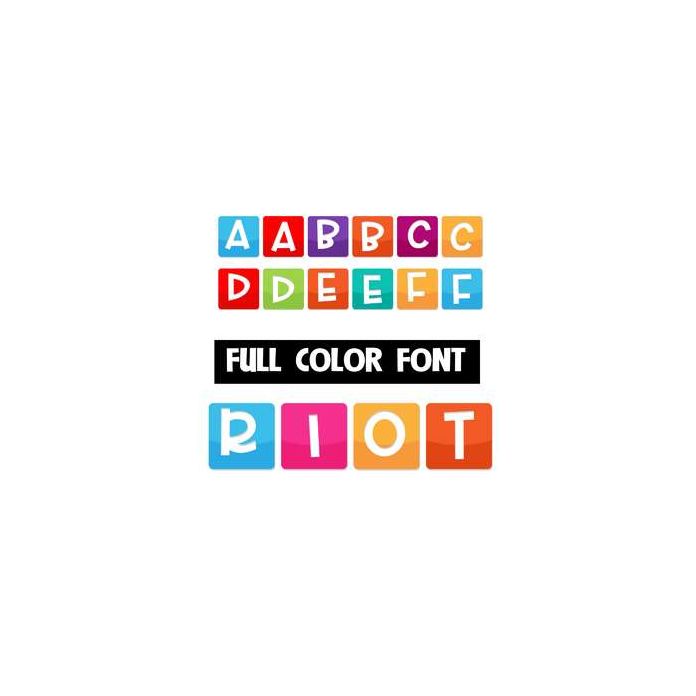
This full-color font is a bright and colorful font with two different cases. Mix up both cases as you type for best results. This font works best for titles, displays, posters and more. Please note color fonts will show as black in non compatible programs. This font type is compatible with Silhouette Studio.